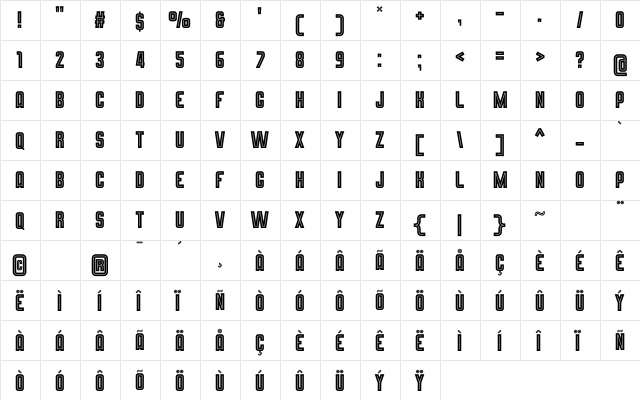
Alejo Line Regular
Design Context for Alejo Line Typeface
Alejo Line takes a measured approach to typography — its balanced proportions and neutral character make it a reliable workhorse for both digital and print work.